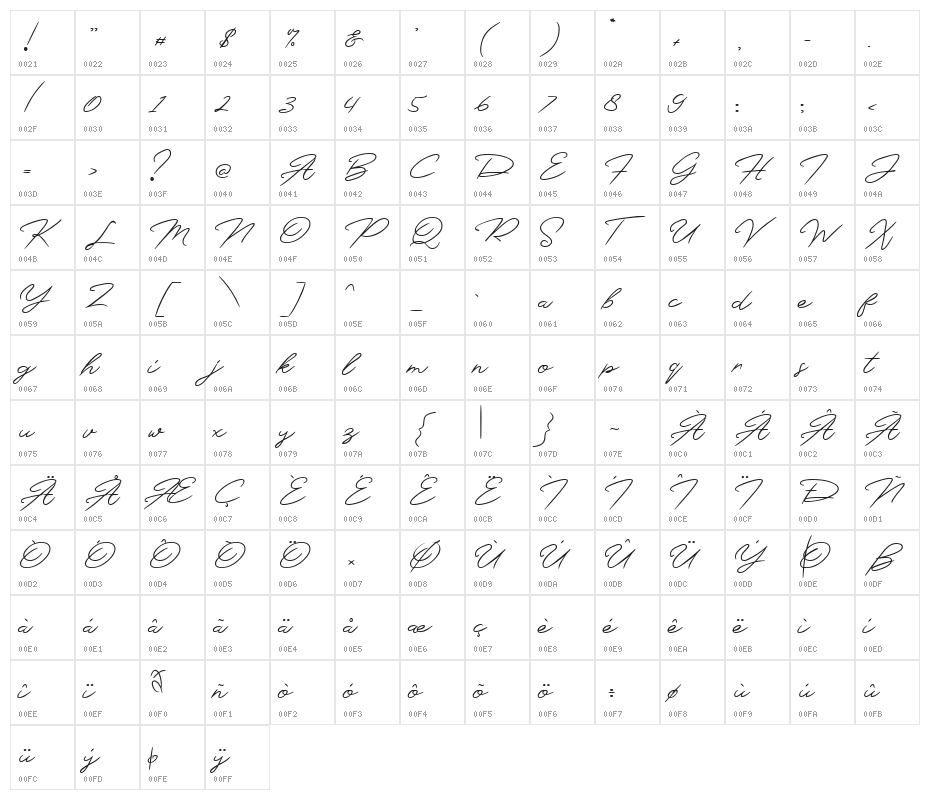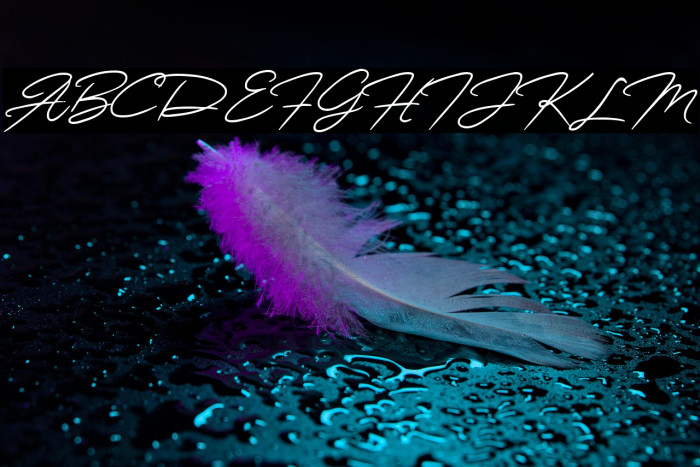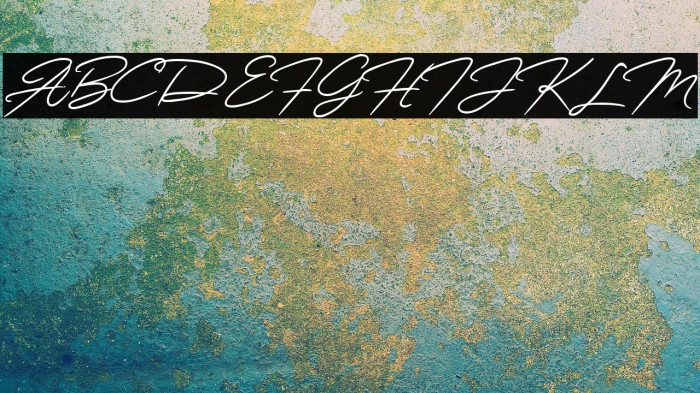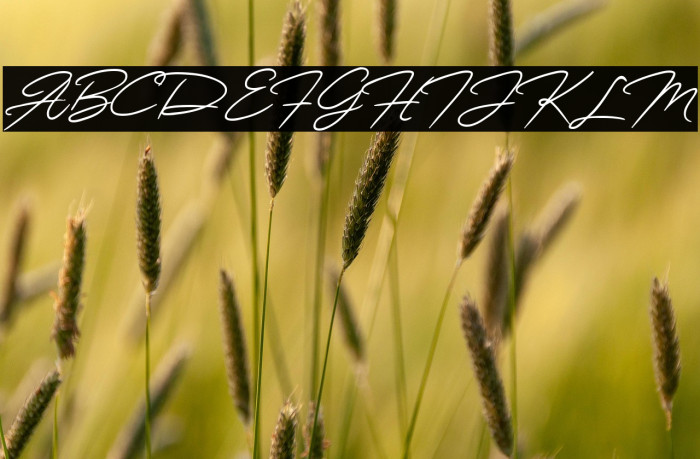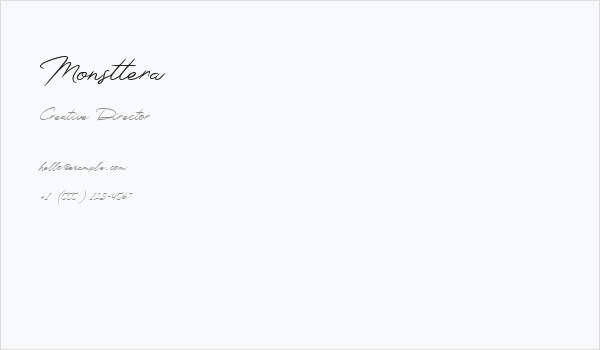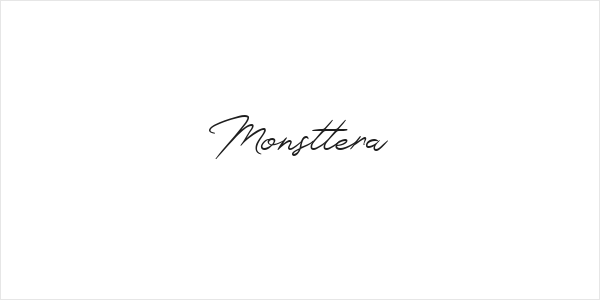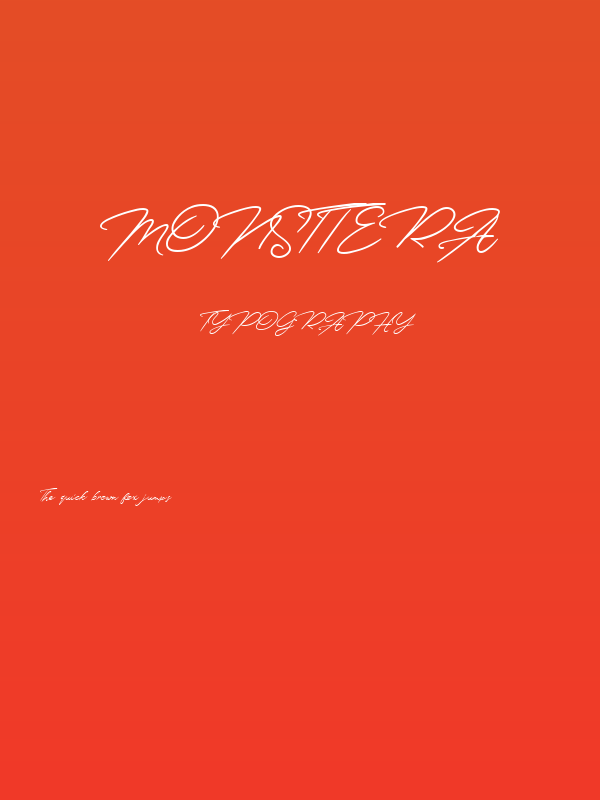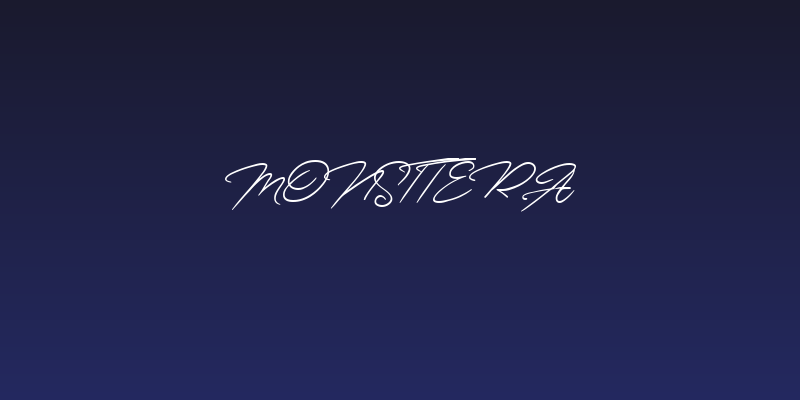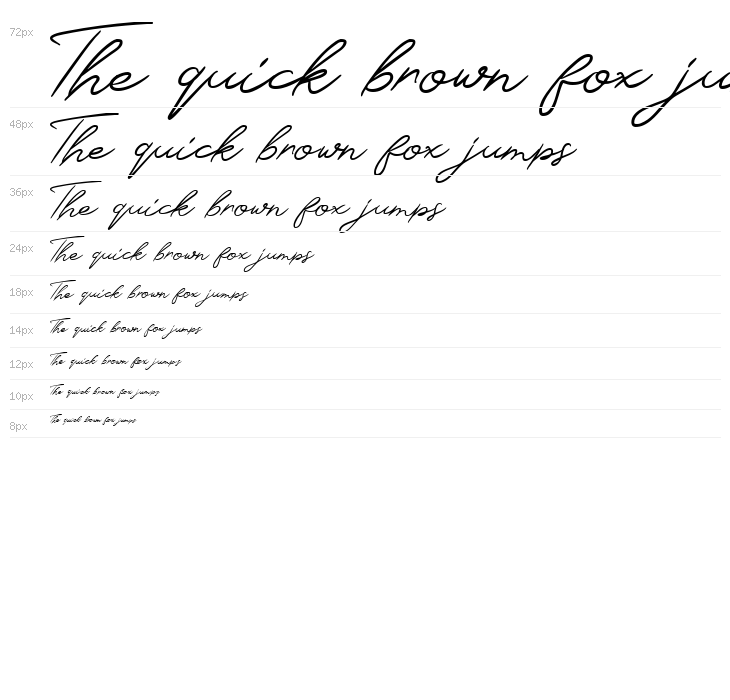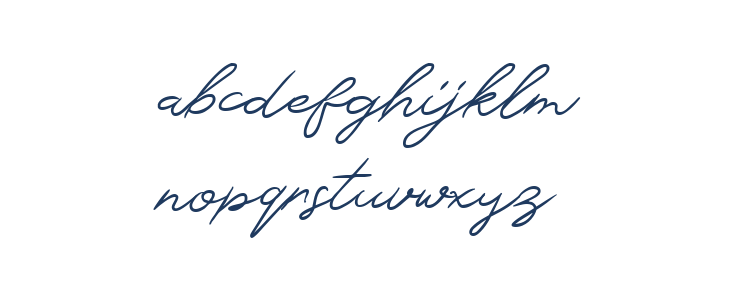
Monsttera Font
Monsttera Description
This elegant script font features a flowing, cursive style with smooth, connected strokes that mimic the fluidity of handwriting. The uppercase letters are slightly more ornate, with sweeping lines and loops that add a touch of sophistication. The lowercase letters maintain a consistent style, offering a harmonious blend of curves and angles. The numerals are clear and legible, matching the overall aesthetic of the font. Special characters are included, maintaining the same graceful style. This font exudes a sense of elegance and refinement, making it suitable for formal and decorative applications.
Overall StyleElegant
Use CaseLogos, Invitations, Decorative text
Proposed ProjectsIdeal for wedding invitations, elegant branding, personal signatures, and decorative headings.